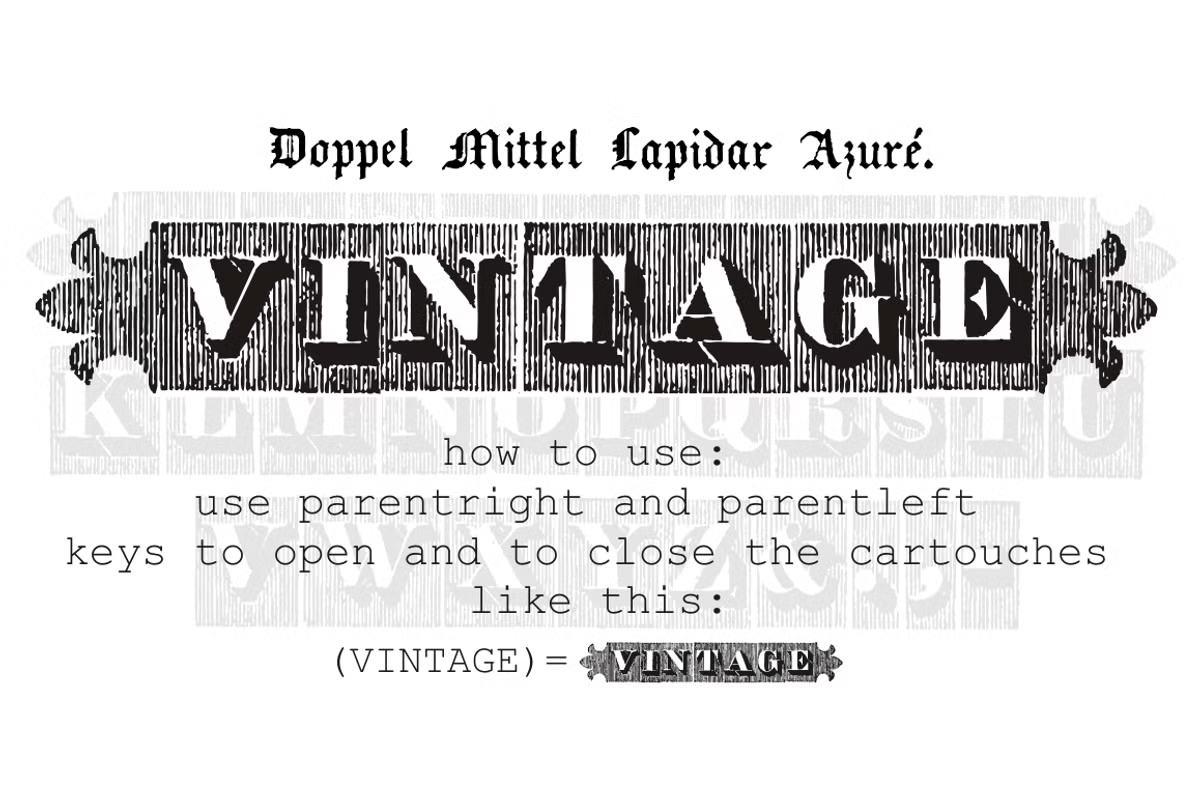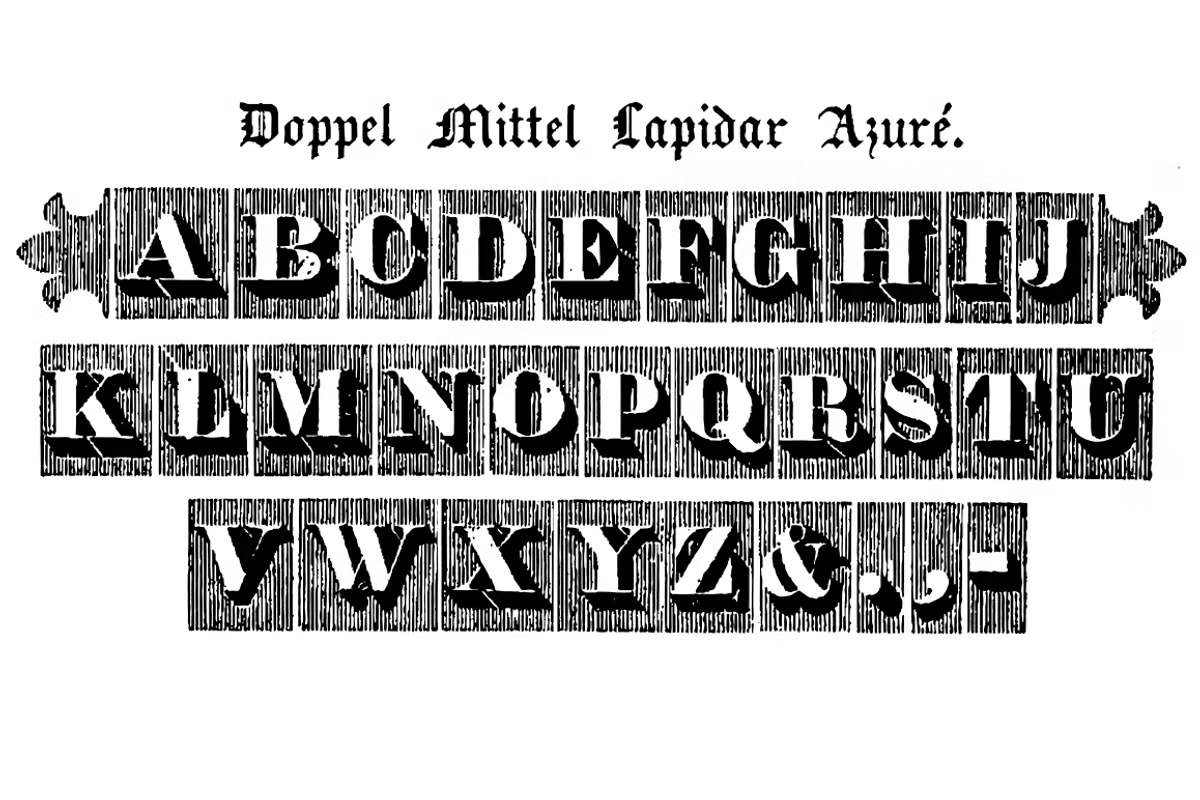
Doppel Mittel Lapidar Azure
Doppel Mittel Lapidar Azure is a decorative display font great for large header-like usage. A classic font design remastered by the type foundry Intellecta Design, inspired at wood types from the XIX century. Doppel Mittel Lapidar Azure es una fuente decorativa ideal para uso como encabezado grande. Un diseño de fuente clásico remasterizado por la fundición tipográfica Intellecta Design, inspirado en tipos de madera del siglo XIX